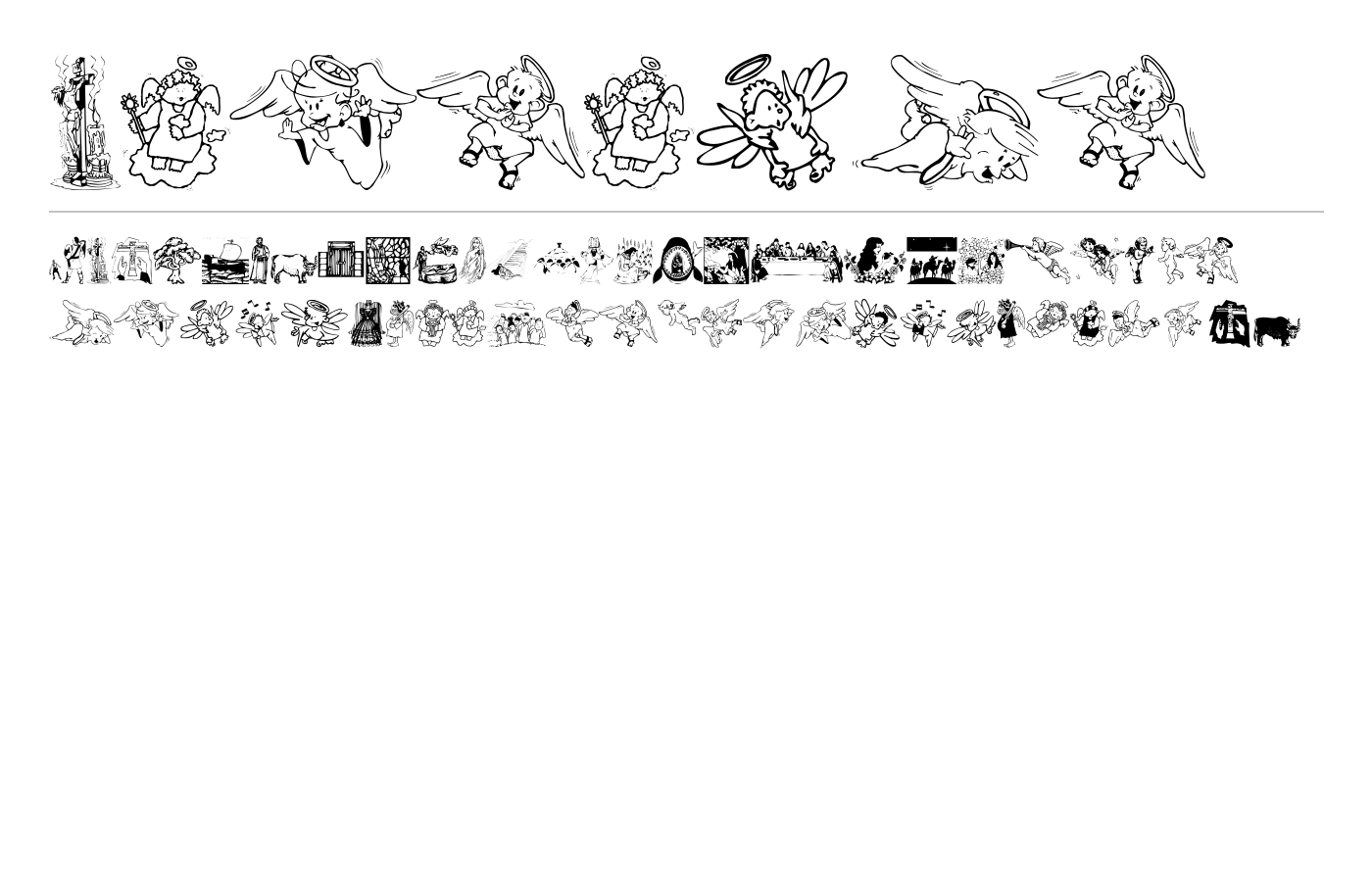
Biblical Font is a decorative dingbat-style font featuring charming, hand-drawn religious and biblical-themed illustrations, including angels, nativity scenes, and other iconic imagery. Its playful and whimsical style makes it perfect for holiday cards, religious event invitations, children's materials, or decorative projects that call for a warm, faith-inspired touch. This font adds personality and character with its detailed, yet friendly line art, making it ideal for creative, thematic designs.
Biblical Font
About Biblical Font